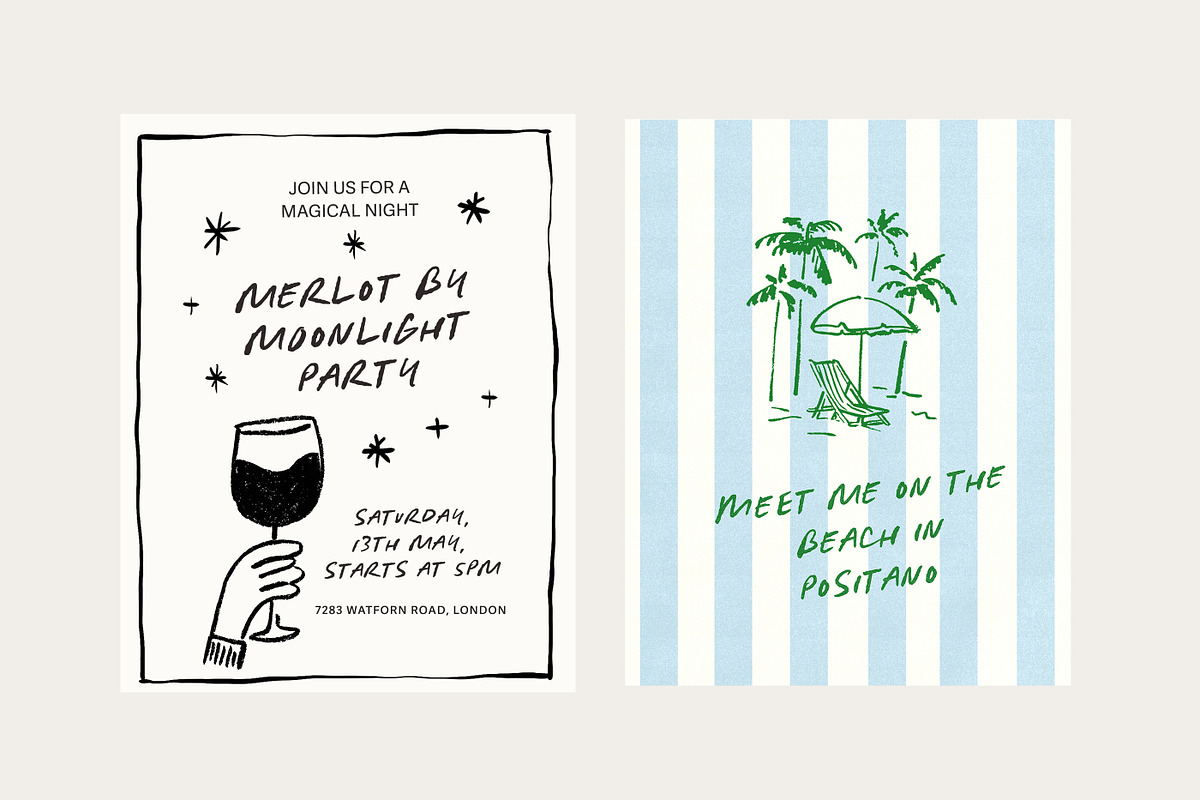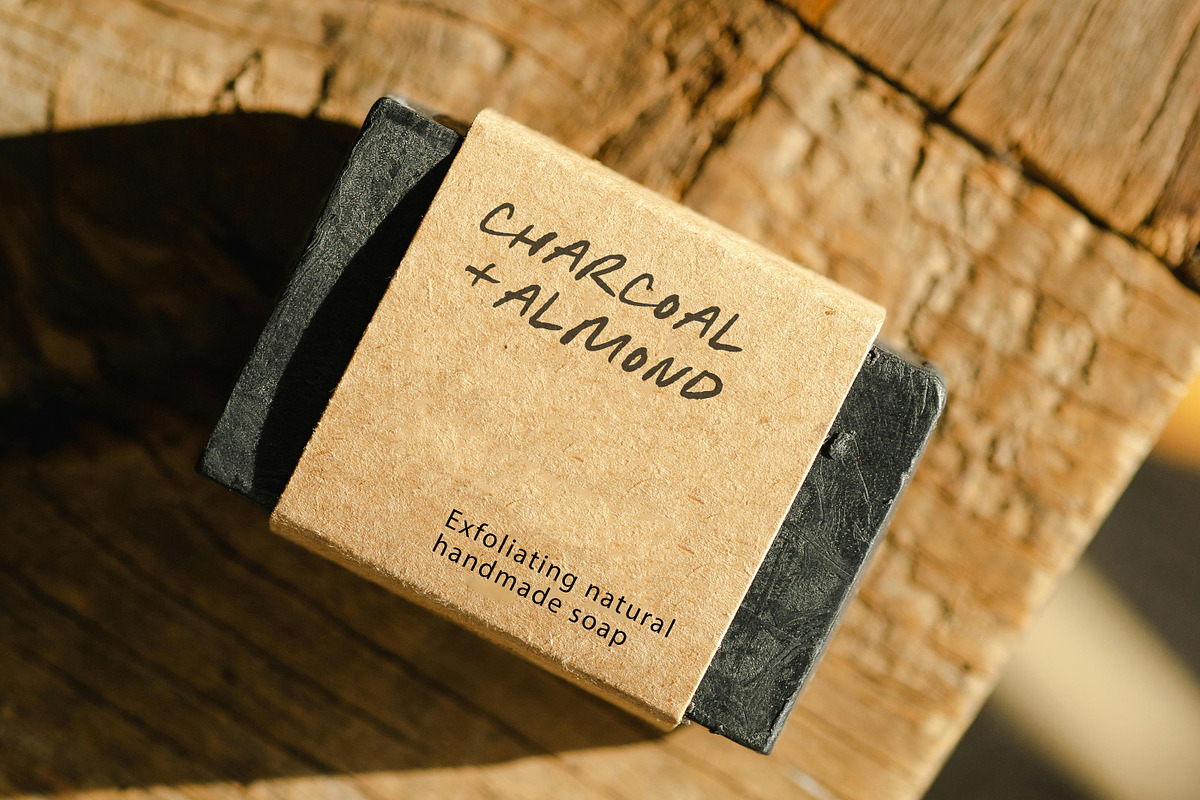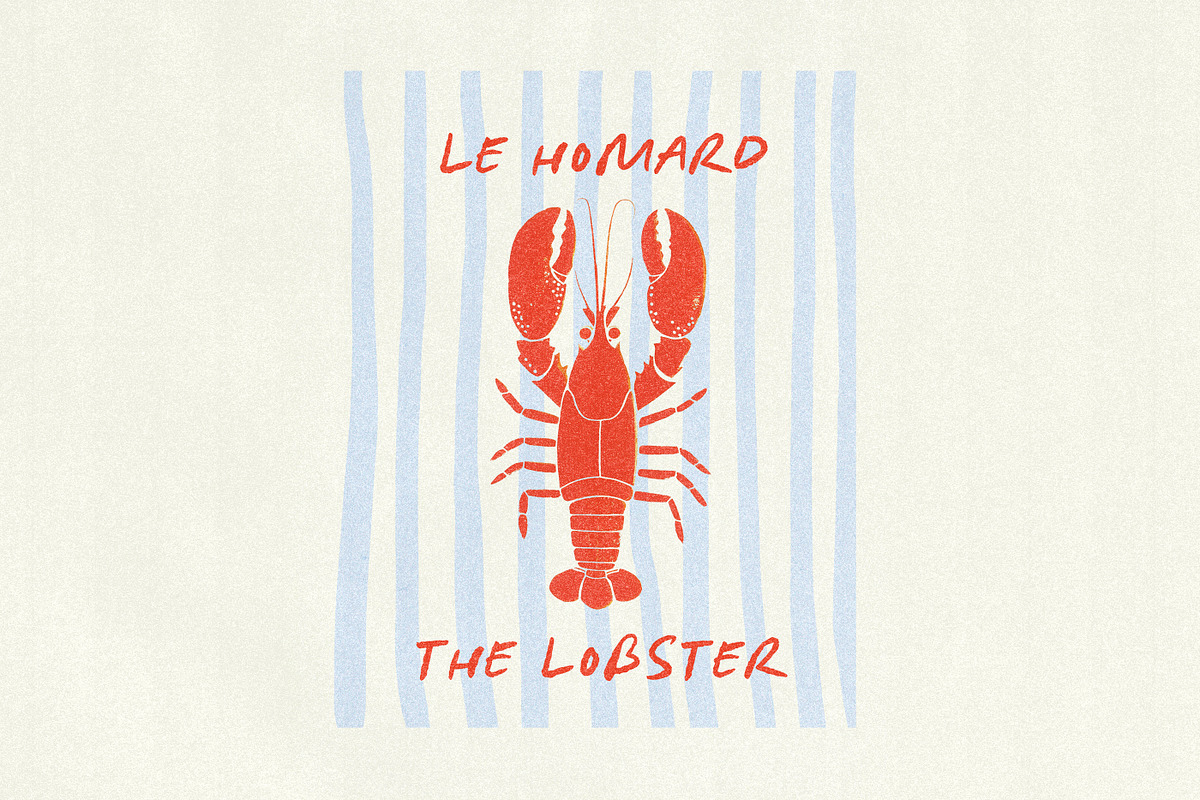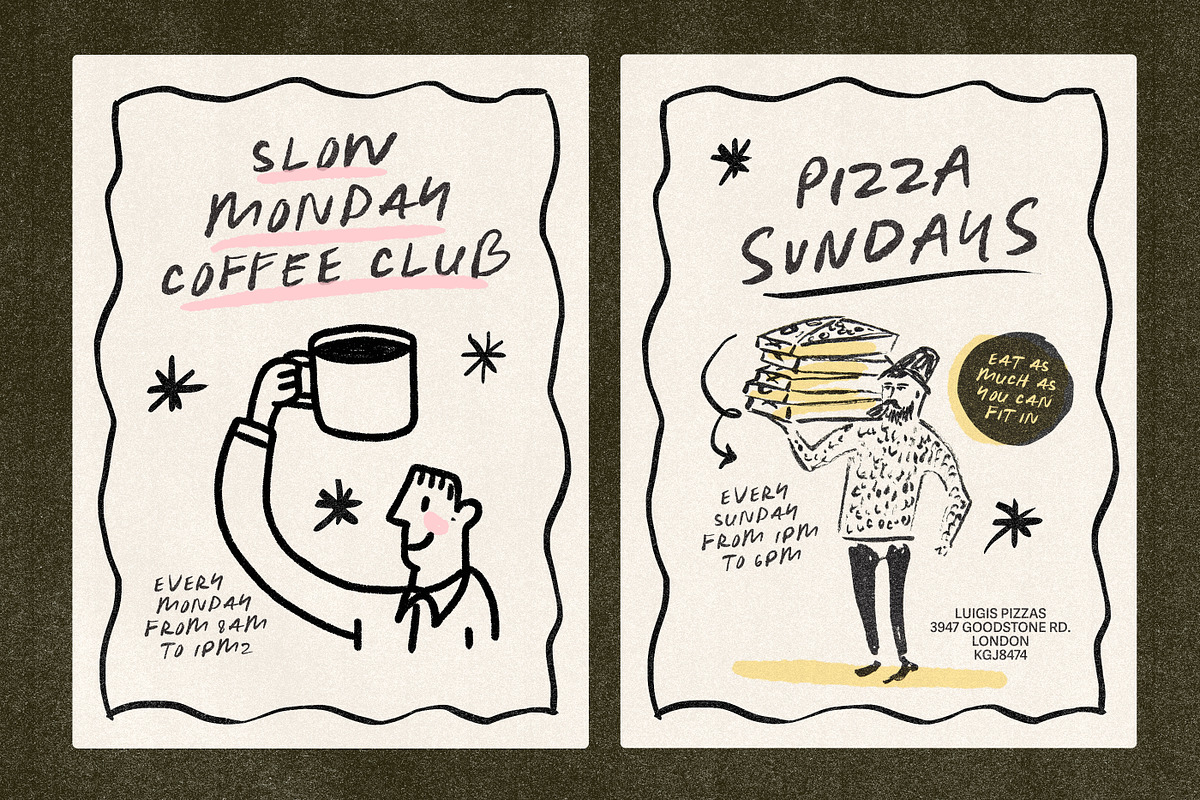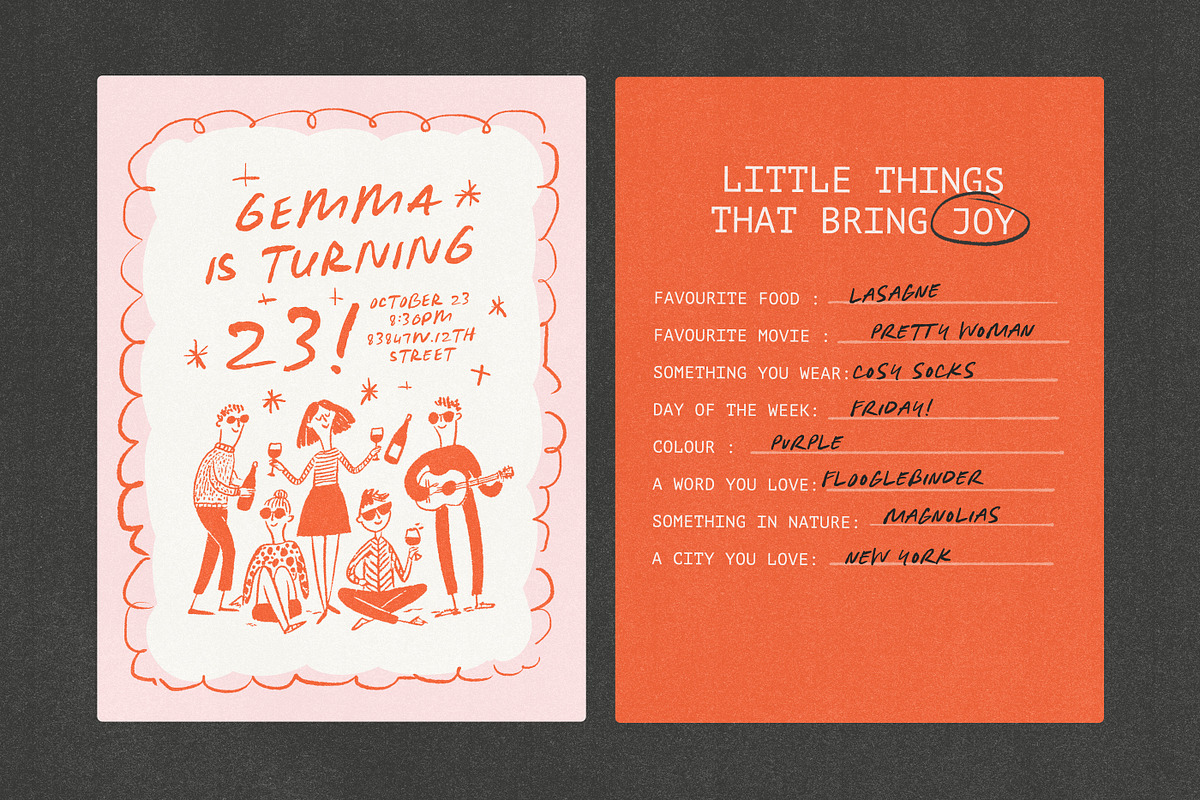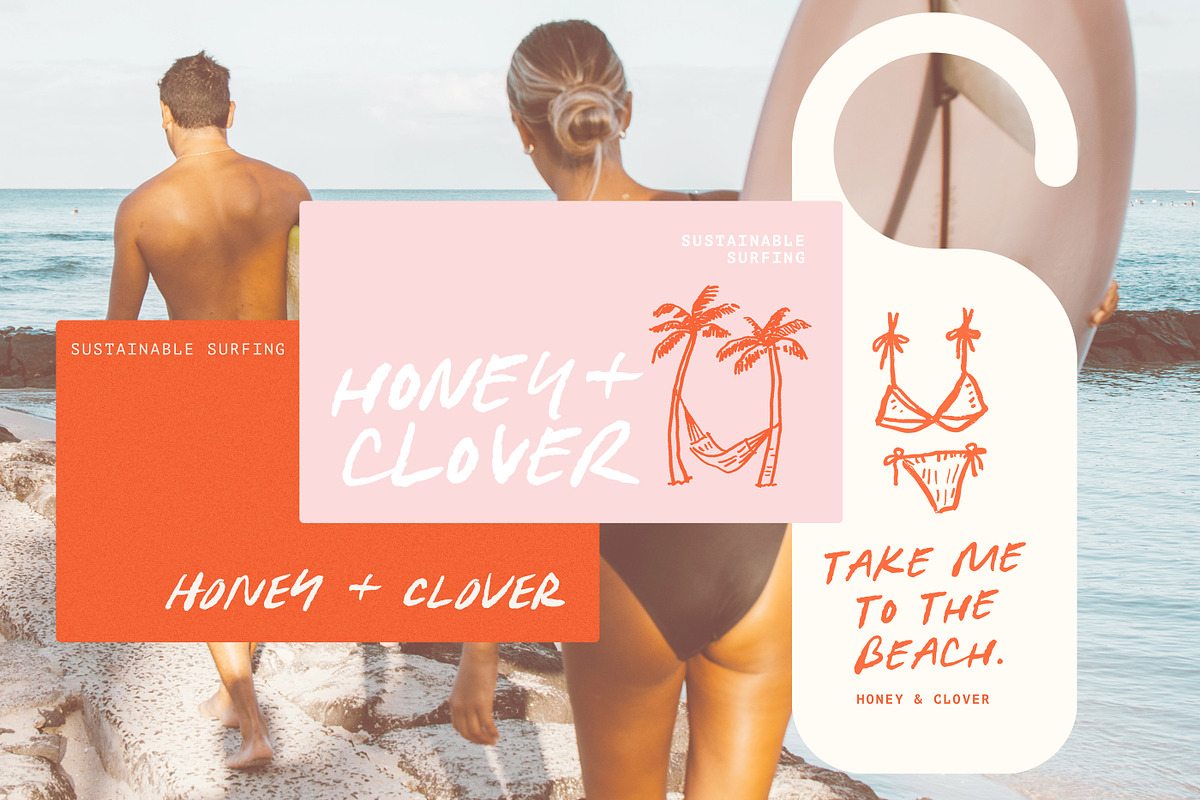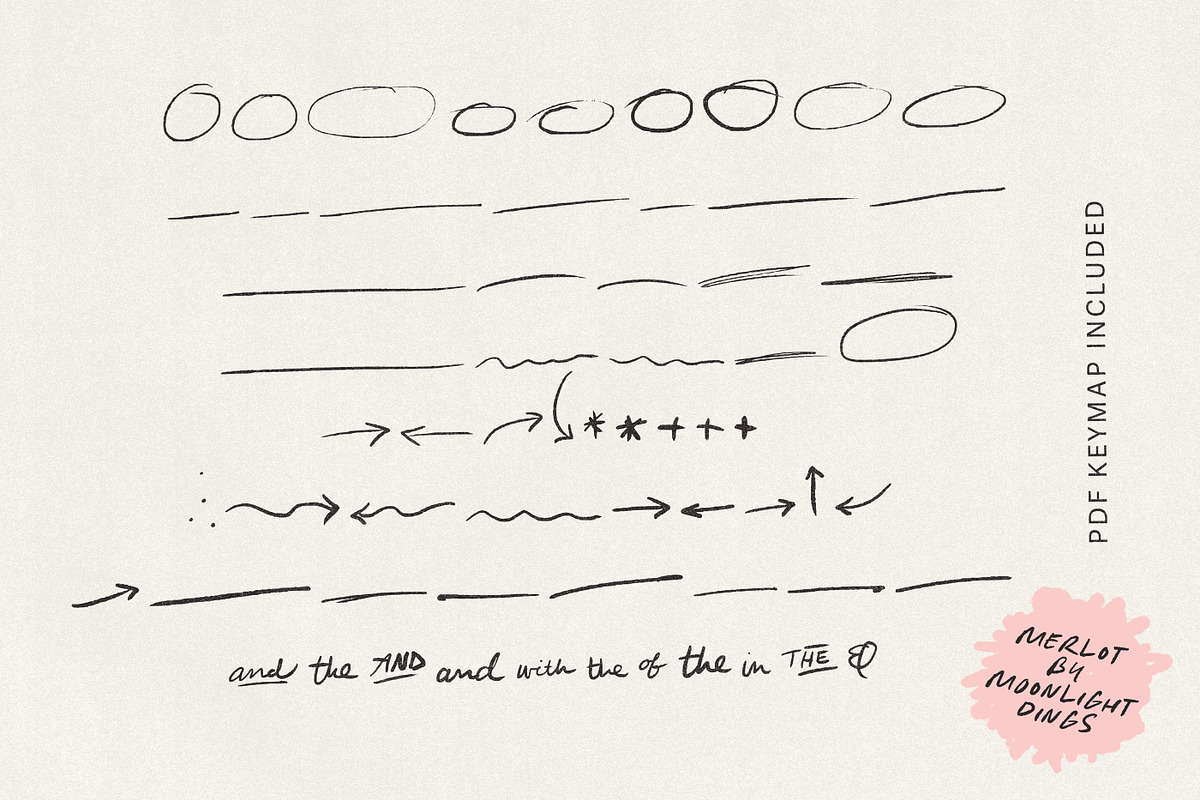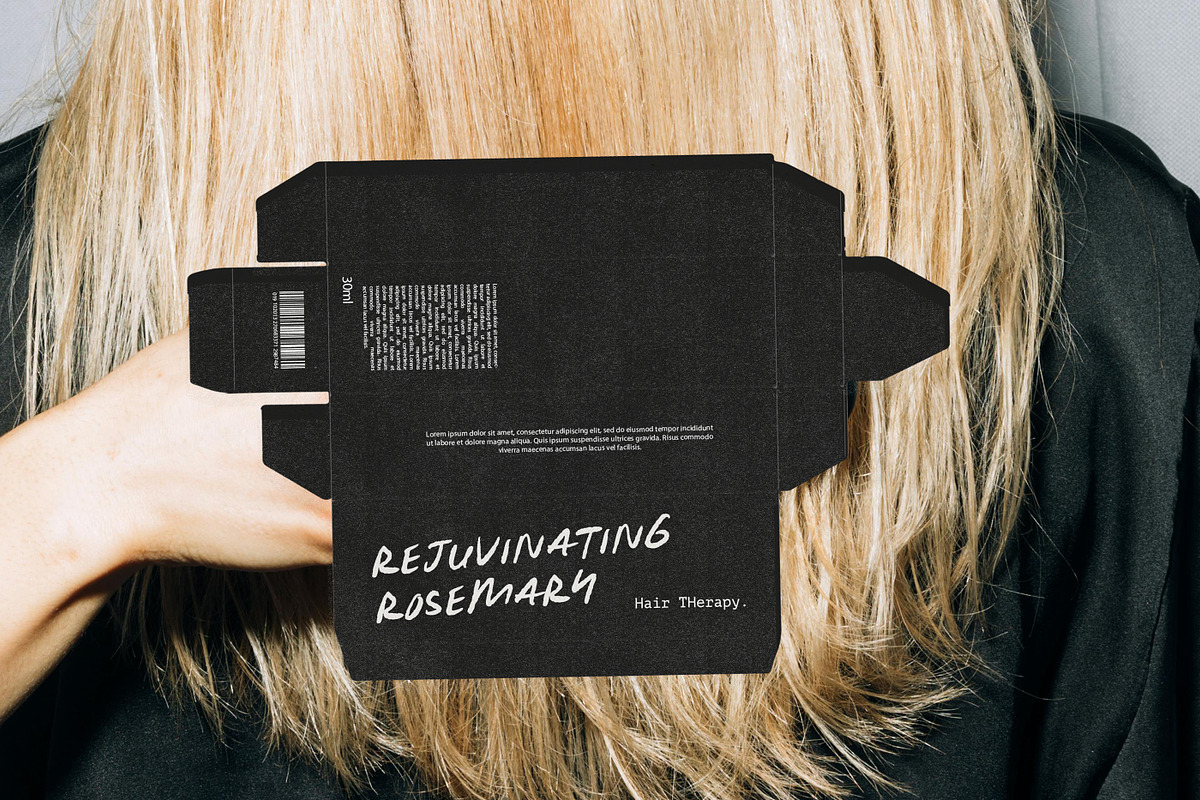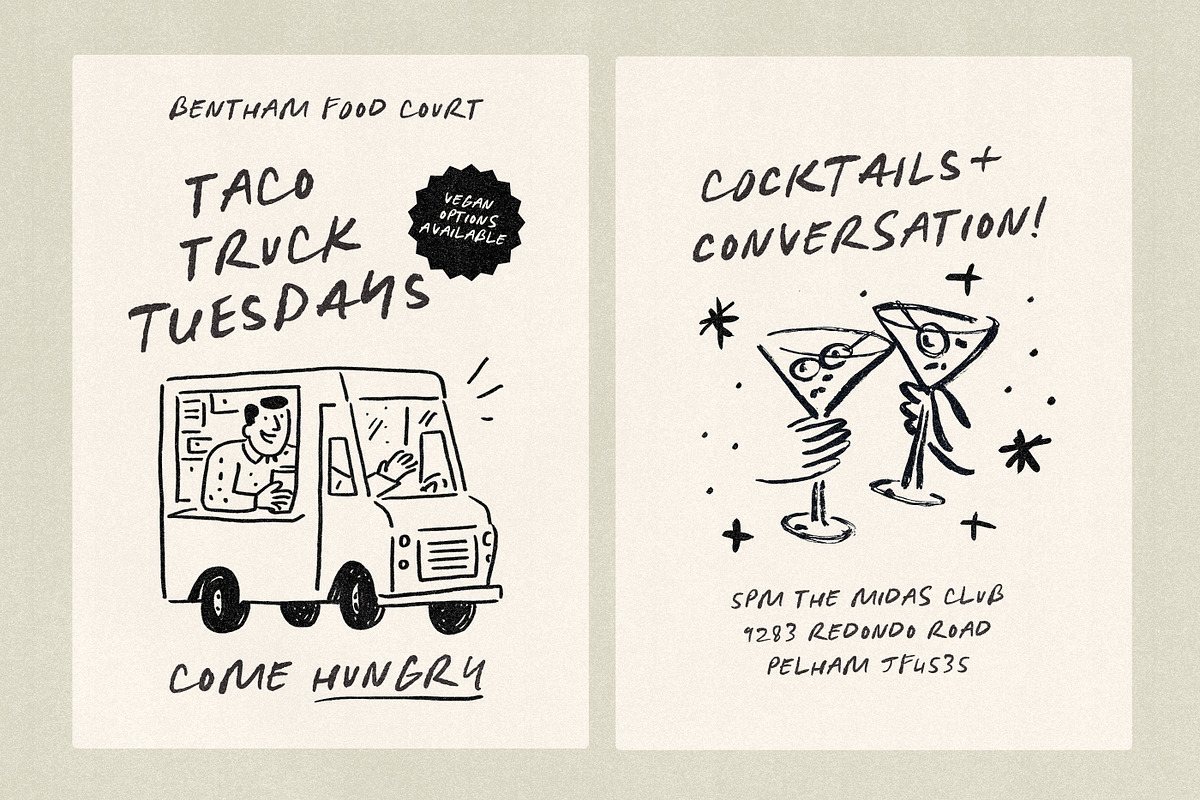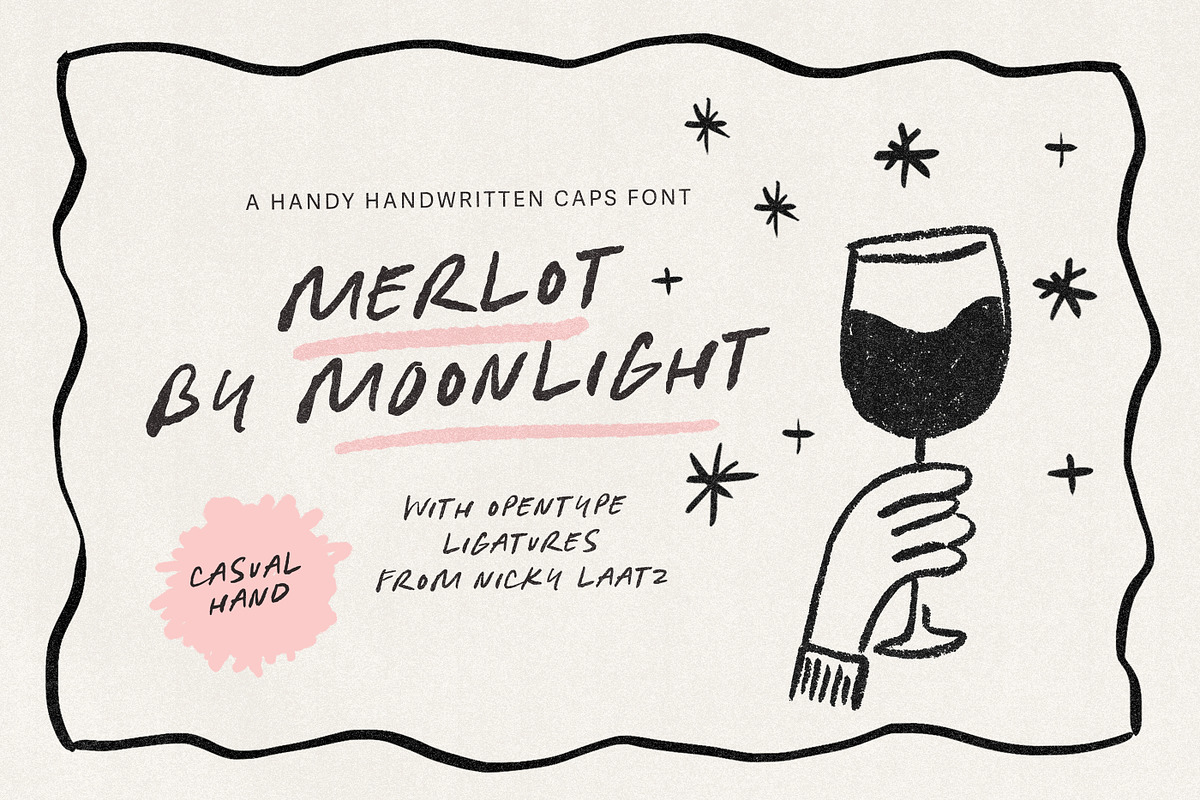
Merlot by Moonlight Casual Caps
Raise a Glass to “Merlot by Moonlight” - the Imperfect Handwritten Font You Didn’t Know You Needed:)
A charming new handwritten caps that dances the fine line between polished and playful, its naturally messy 'bleeding edges' giving a casual hand-drawn look that still manages to feel sophisticated.
With a nod to vintage wine labels, midnight musings, and scribbled love notes, this font delivers warm character and organic flow, thanks in part to thoughtfully designed OpenType ligatures.
Perfect for branding, packaging, quotes, invitations, and anything else that needs a personal touch with a bit of cheeky charm.
And here’s the cherry on top—or rather, the garnish on your glass: this typeface also includes a playful set of dingbats—hand-sketched stars, arrow, and charming little extras that let you easily decorate your layouts with flair.
So go ahead—take a sip. Your next design just found its signature!